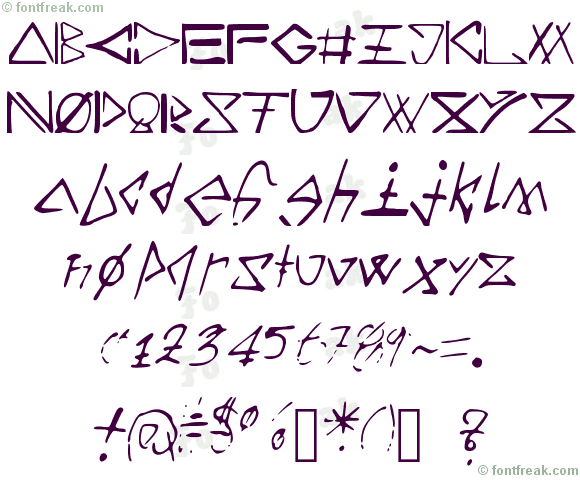
ANGLE_
ANGLE_ by Travis Pecsi is a striking display font that falls into the decorative category. Its unique design features bold, angular strokes that give it a contemporary and dynamic appearance. The font boasts a medium stroke weight with minimal contrast, making it highly legible while still exuding personality. The spacing between characters is thoughtfully considered, ensuring that each letter stands out without feeling crowded, enhancing readability in various contexts. Its geometric forms are complemented by playful, sharp angles that add a sense of modernity and flair.
This font is ideal for a variety of creative projects. It works beautifully for eye-catching movie posters, where its bold style can draw attention and convey excitement. Wedding invitations can benefit from its unique aesthetic, providing a contemporary twist to traditional designs. Restaurant menus can utilize ANGLE_ to highlight special dishes, giving an upscale, trendy vibe. Additionally, graphic designers can leverage this font for branding materials, like logos or promotional graphics, where a distinctive look is crucial. Content creators looking to add some flair to their digital or printed projects will also find ANGLE_ to be a valuable asset.